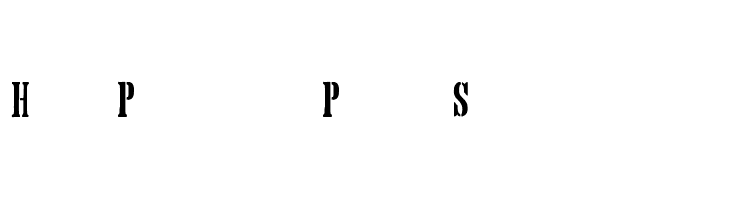
A bold, expressive handwritten font with dynamic and irregular strokes.
A bold, expressive handwritten font with dynamic strokes.
A bold, italicized, and expressive handwritten font with dynamic strokes.
A dot matrix style font with a retro digital display appearance.
A playful, handwritten font with a casual and friendly style.
A playful, handwritten font with a casual and lively style.
A modern, geometric font with smooth curves and clean lines.
A modern, italicized font with rounded edges and a sleek, dynamic style.
A bold, vintage-style font with a distressed texture and strong visual impact.
A bold, rounded, and slightly italicized font with a modern and approachable style.
A bold, rounded font with smooth edges and a modern, friendly style.
A bold, modern sans-serif font with a clean and uniform appearance.
A bold, thick font with rounded edges and strong visual impact.
A bold, italic font with a modern and dynamic style.
A bold, italicized font with a modern and dynamic style.
A bold, rounded font with a playful and approachable style.
A bold, geometric font with strong, modern letterforms.
A bold, rounded font with a playful and friendly style.
A playful, hand-drawn font with irregular, whimsical letterforms.
A playful, italicized handwritten font with medium contrast and dynamic character.
A bold, slab serif font with strong, impactful characters.
A bold, textured font with a vintage, hand-drawn aesthetic.